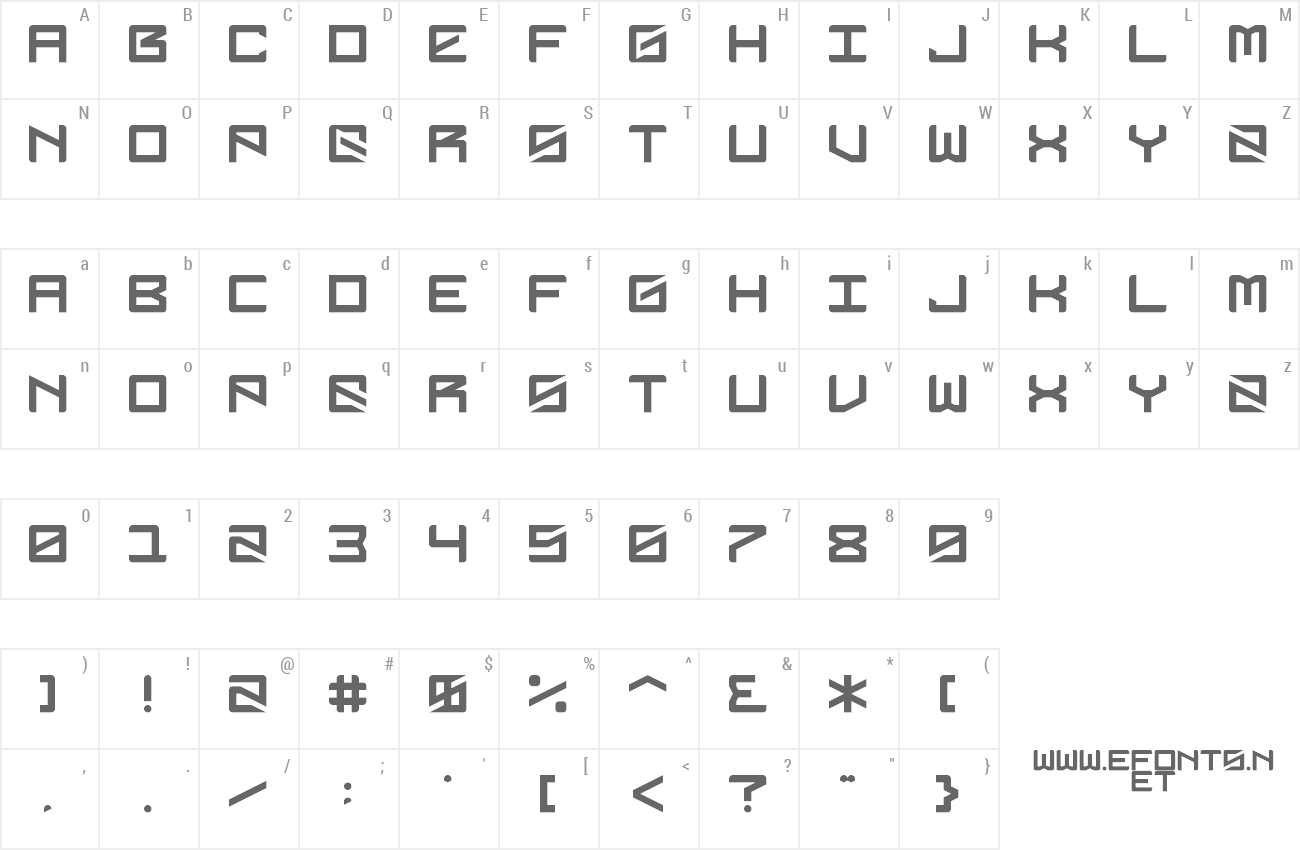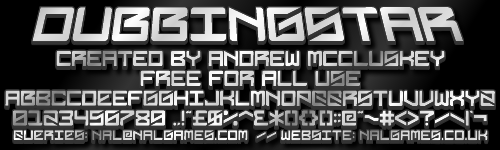
Preview and download DubbingStar Font. Created by NALGames in Techno Various styles with 100% Free license.
Another dubstep-inspired font. Techno, square-based. There are some subtle differences in some of the glyphs between capital and lower case letters (see preview image). Free for all use. Notification on use, commercial or otherwise, is not required, but I genuinely love it when you do - so please consider quickly dropping a line! I don't bite, and I won't refuse you permission to use the font regardless of how it's being used. Credit is much of the same - not required, but it makes me smile when people do :) You're also welcome to donate if you like/use the font (PayPal: nal[at]nalgames[dot]com, or just use DaFont's built in Donate link), but again, optional! |